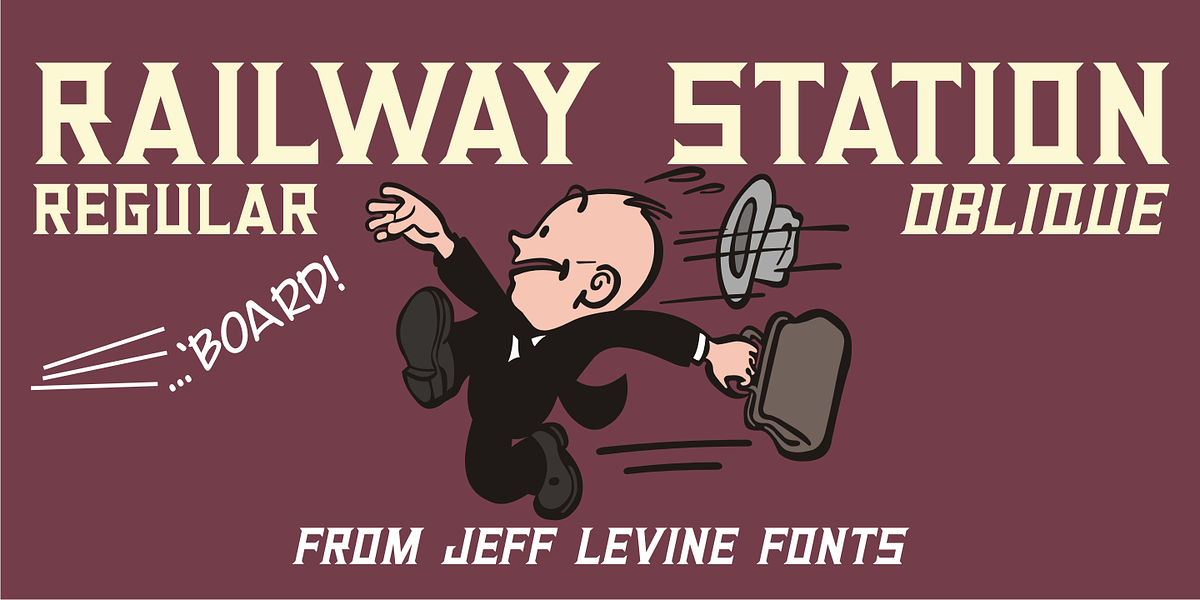
Railway Station JNL
The hand lettered title on the 1911 sheet music for “That Railroad Rag” was designed in a block style letter with spurred serifs. This simple typographic layout evokes the imagery of early rail transportation although the song itself is was a ‘modern’ composition of then-popular ragtime music.
Railway Station JNL is available in both regular and oblique versions.